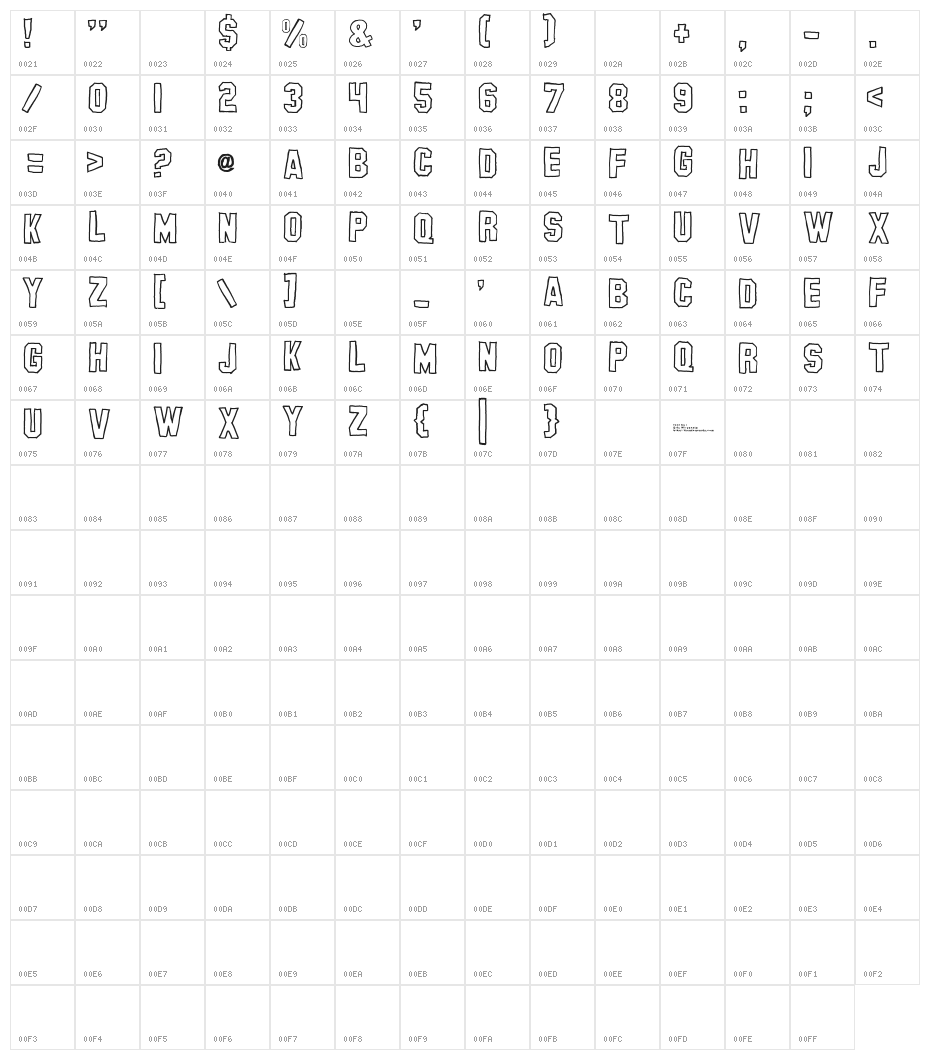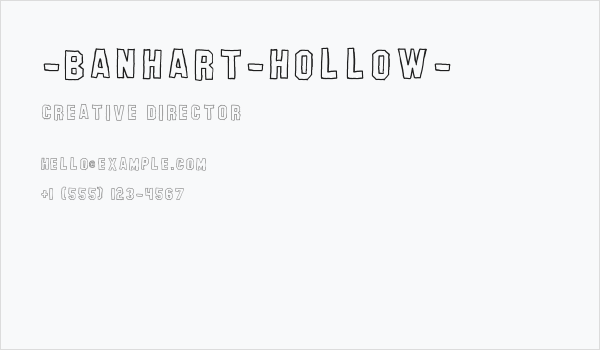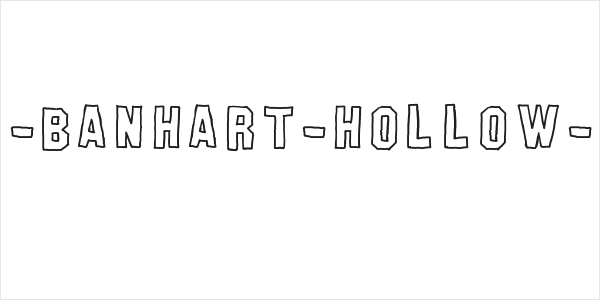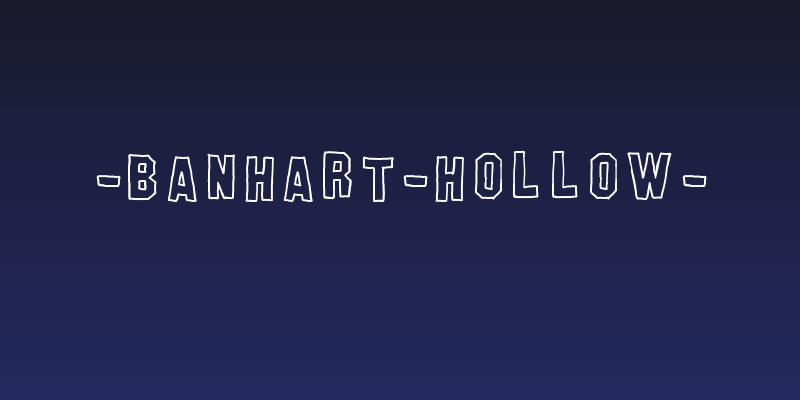
-banhart-hollow- Font
-banhart-hollow- Description
A decorative, hollow display font with playful, hand-drawn letterforms and open interiors, giving a light and airy appearance. The strokes are consistent in thickness with rounded terminals, and the overall style is whimsical and informal.
| Overall Style | Decorative, Whimsical, Hand-drawn |
| Proposed Projects | Posters, childrenΓ’β¬β’s books, greeting cards, event invitations, creative branding. |